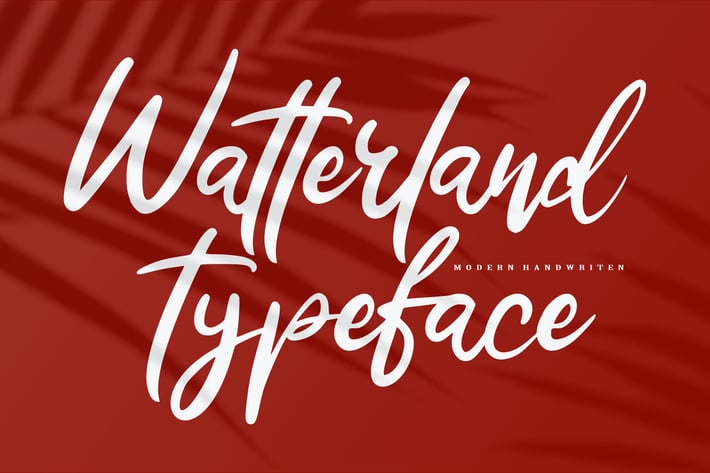
Watterland Typeface | Modern Handwriten Script
Watterland Typeface | Modern Handwriten Font with a calligraphy style, So beautiful on invitation like greeting cards, branding materials, business cards, quotes, posters, and more!